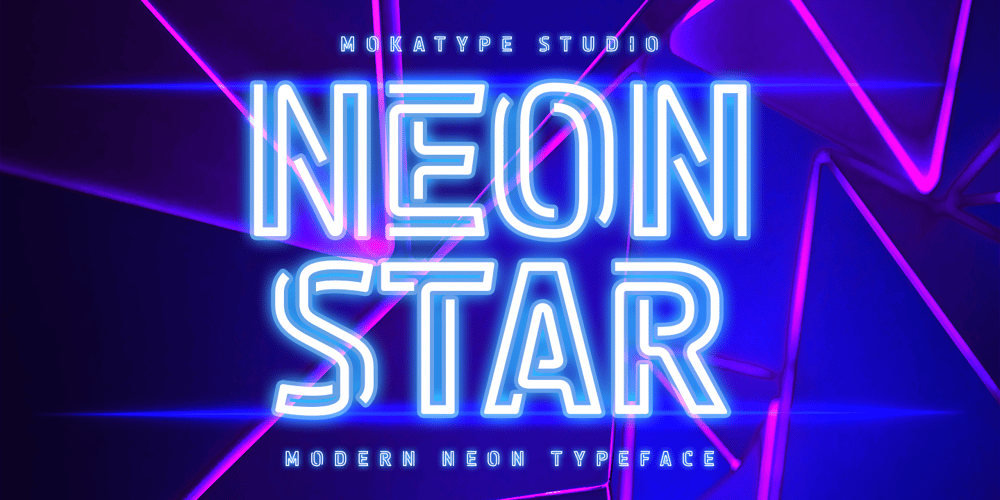
Neonstar
Neonstar font
Neonstar Font Family was designed by Abdul Malik Wisnu, Rivo Adriansyah and published by Mokatype Studio. Neonstar contains 1 styles and family package options. Introducing the Neon Sci-fi Futuristic Font called Neonstat a unique font with a futuristic style that can make your futuristic logotype more interesting. Inspired by real-world neon light signs, this font is perfect for adding your own glowing light effects or can be used to actually design real-world neon signs. Neonstar font is suitable for your design and allows you to create beautiful designs, headlines, posters, logos, badges, and much more. It is also best used for posts, logos, posters, labels, and more.Works on PC & Mac, simple installations, accessible in Adobe Illustrator, Adobe Photoshop, Adobe InDesign, and even works on Microsoft Word. PUA Encoded Characters – Fully accessible without additional design software. Fonts include multilingual supportImage used: All photographs/pictures/vectors used in the preview are not included, they are intended for illustration only. Thank You